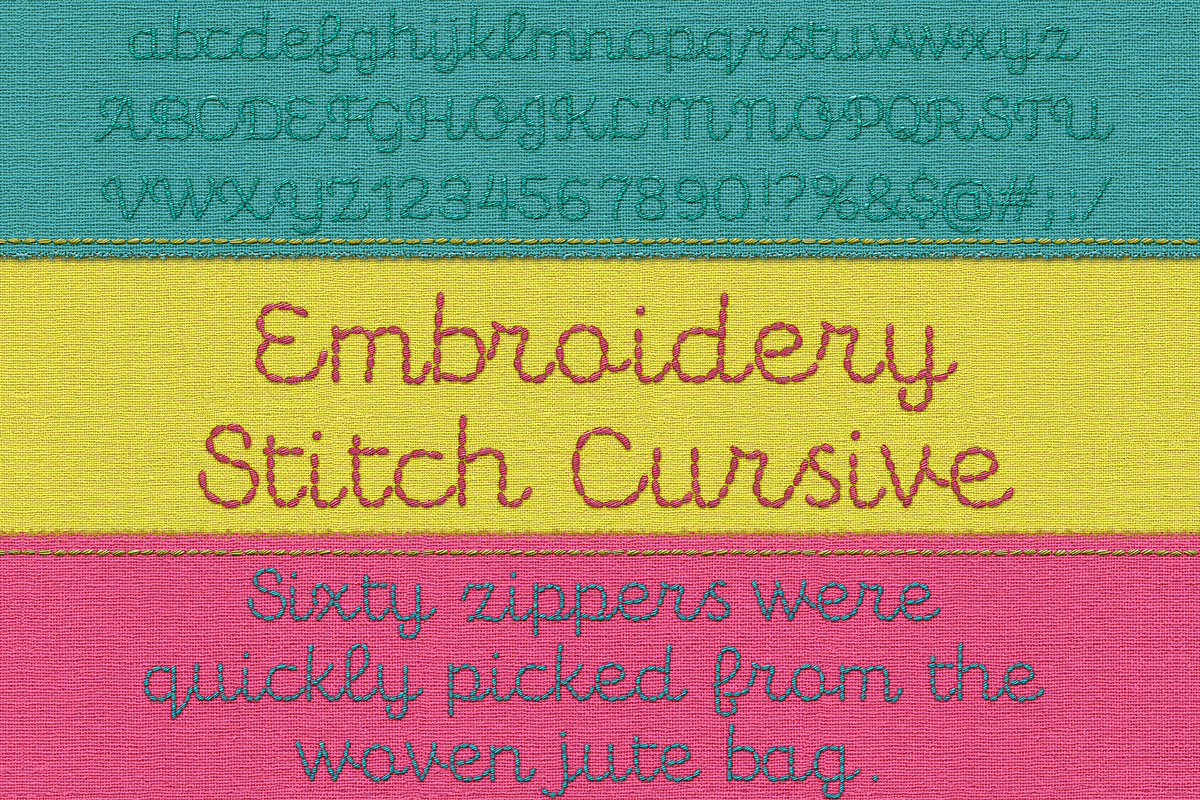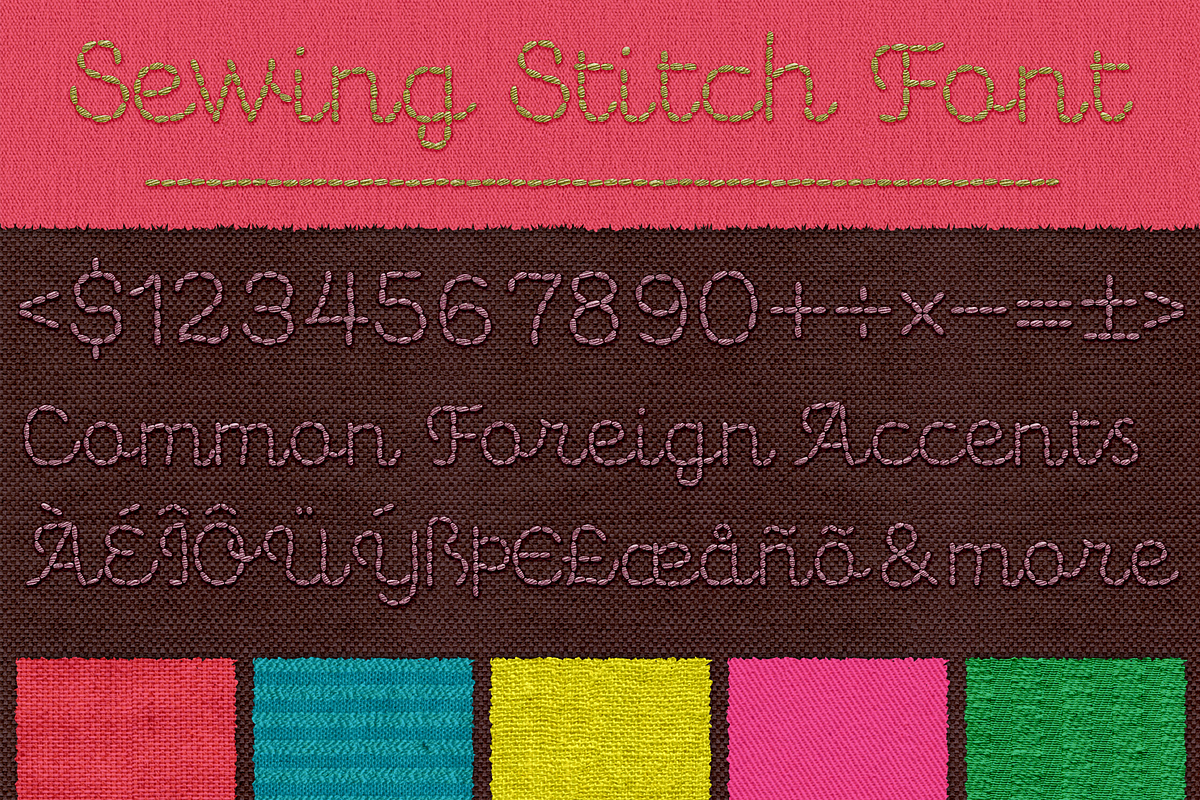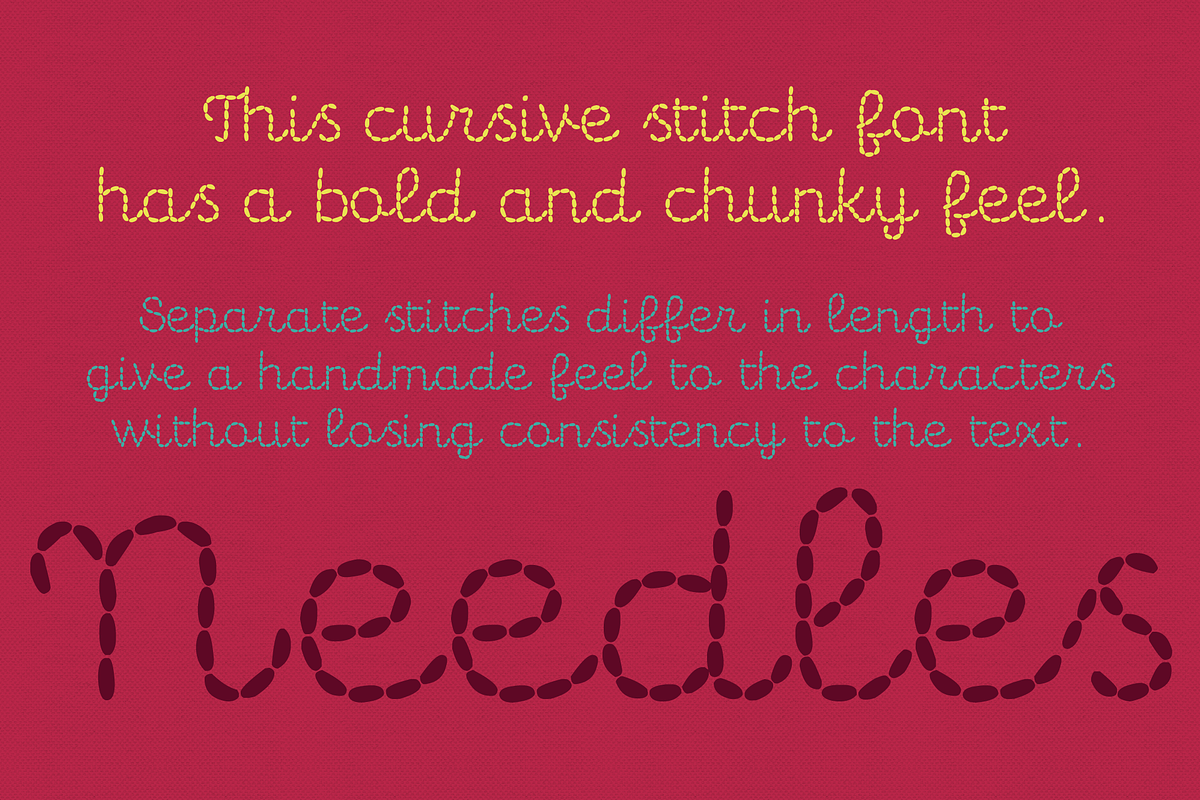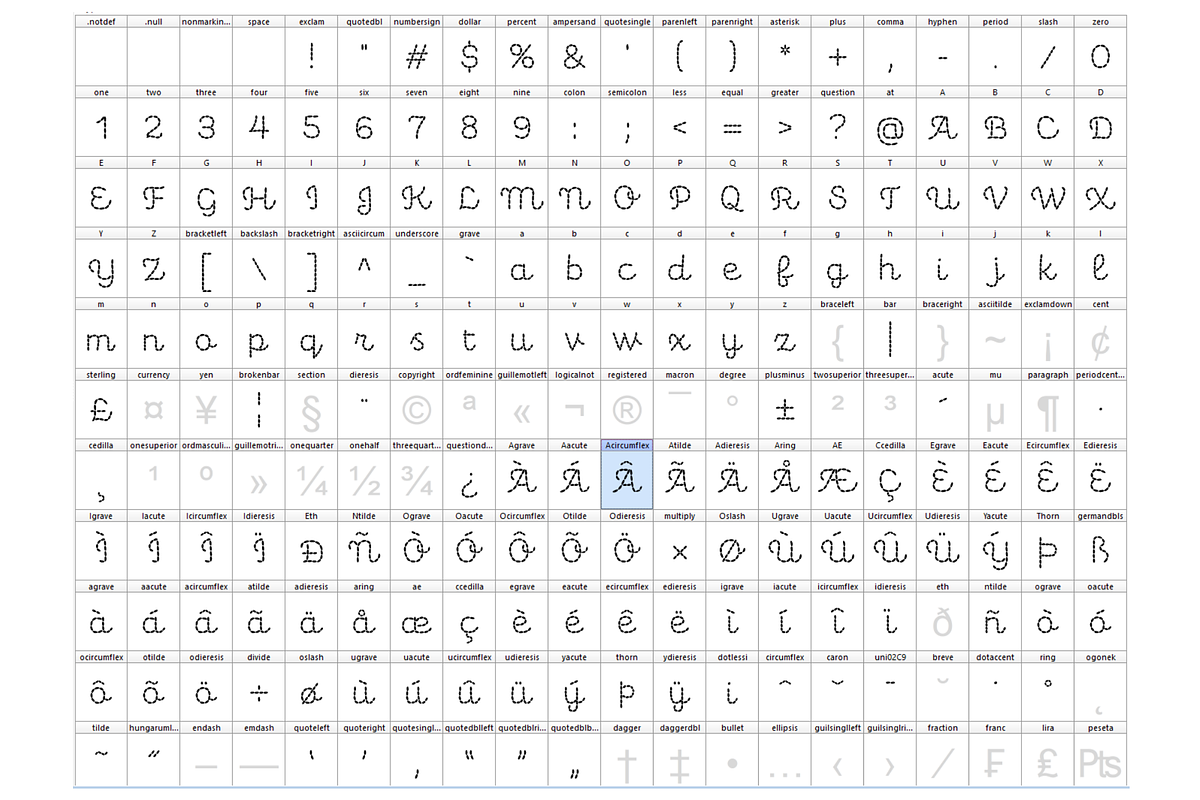
Embroidery Stitch Cursive Font
Looks like a simple yet attractive embroidery running stitch font that remains readable even at smaller sizes. (not a machine embroidery font format) The stitches differ in size according to curves and lines just like real stitching. The chunkier stitches lend themselves well to styling and effects.